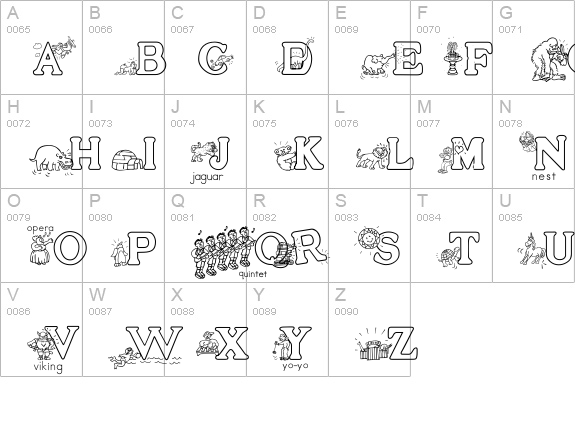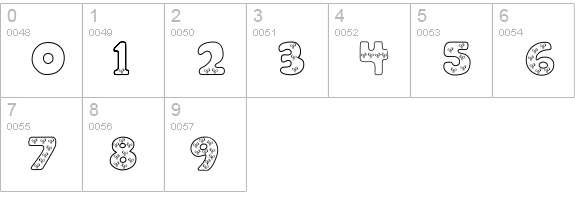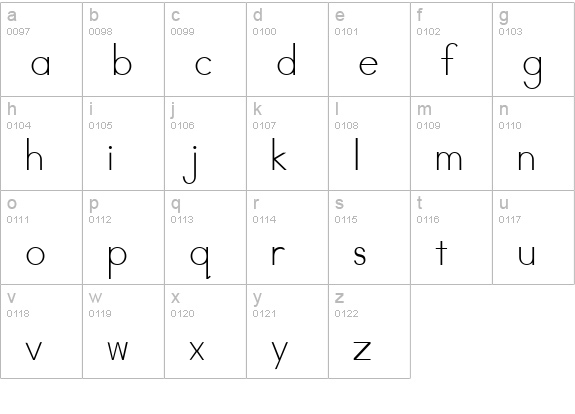
AbcPhonicsOne Font Details
AbcPhonicsOne font is a delightful and playful typeface perfect for educational materials, children's books, and any project aimed at young audiences. With its friendly and easy-to-read design, AbcPhonicsOne font is sure to capture the attention of both kids and adults alike. This font features whimsical letterforms with a touch of whimsy, making it a charming choice for any project that requires a fun and engaging look. What's even better is that AbcPhonicsOne font is available for free! You can download this font at FontsMarket.com and start using it in your projects right away. Whether you're creating a poster, a book cover, or a website for a preschool, AbcPhonicsOne font is the perfect choice to add a touch of creativity and joy to your designs. Download it now and let your imagination run wild with this fantastic and freely available typeface.